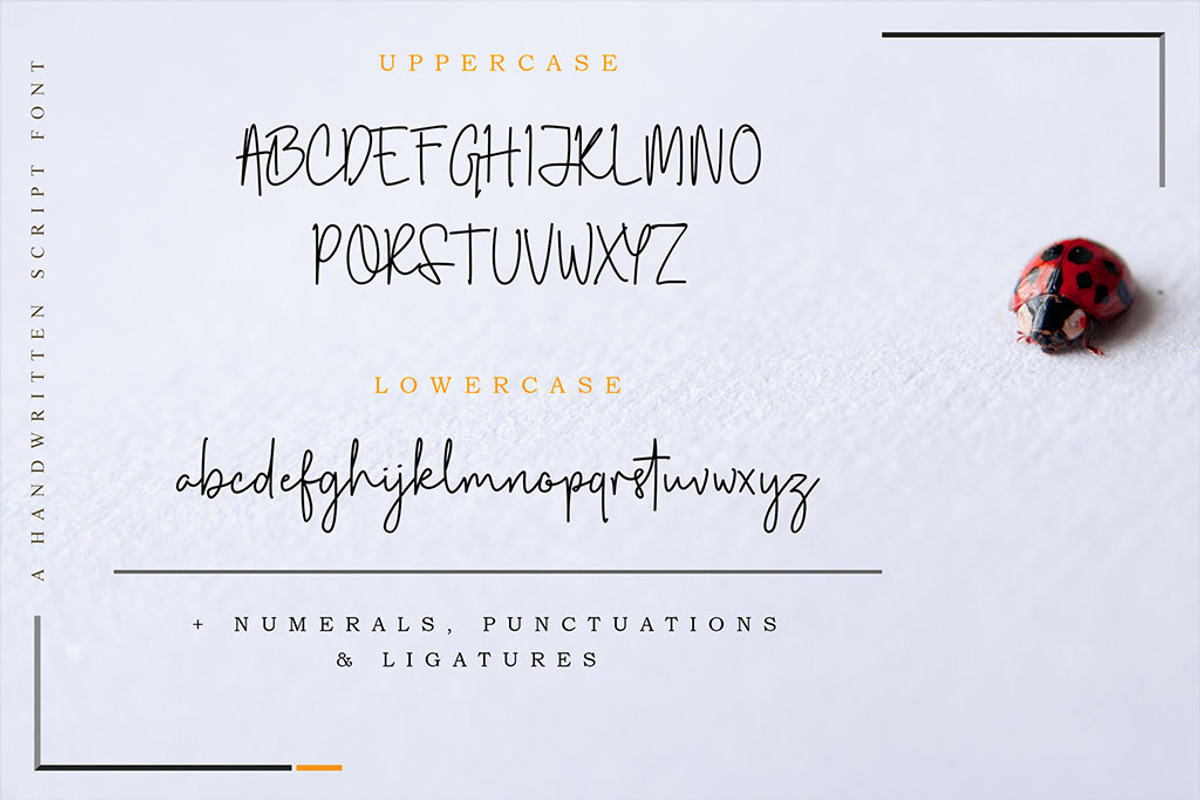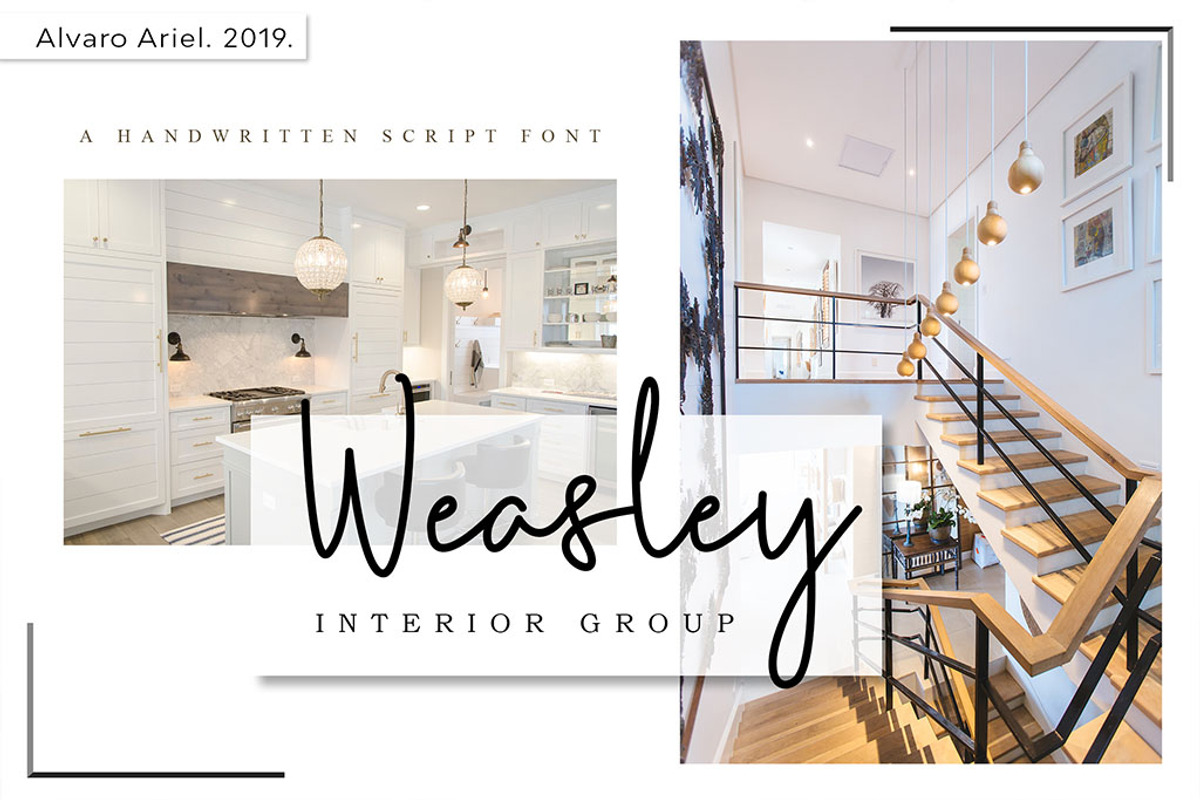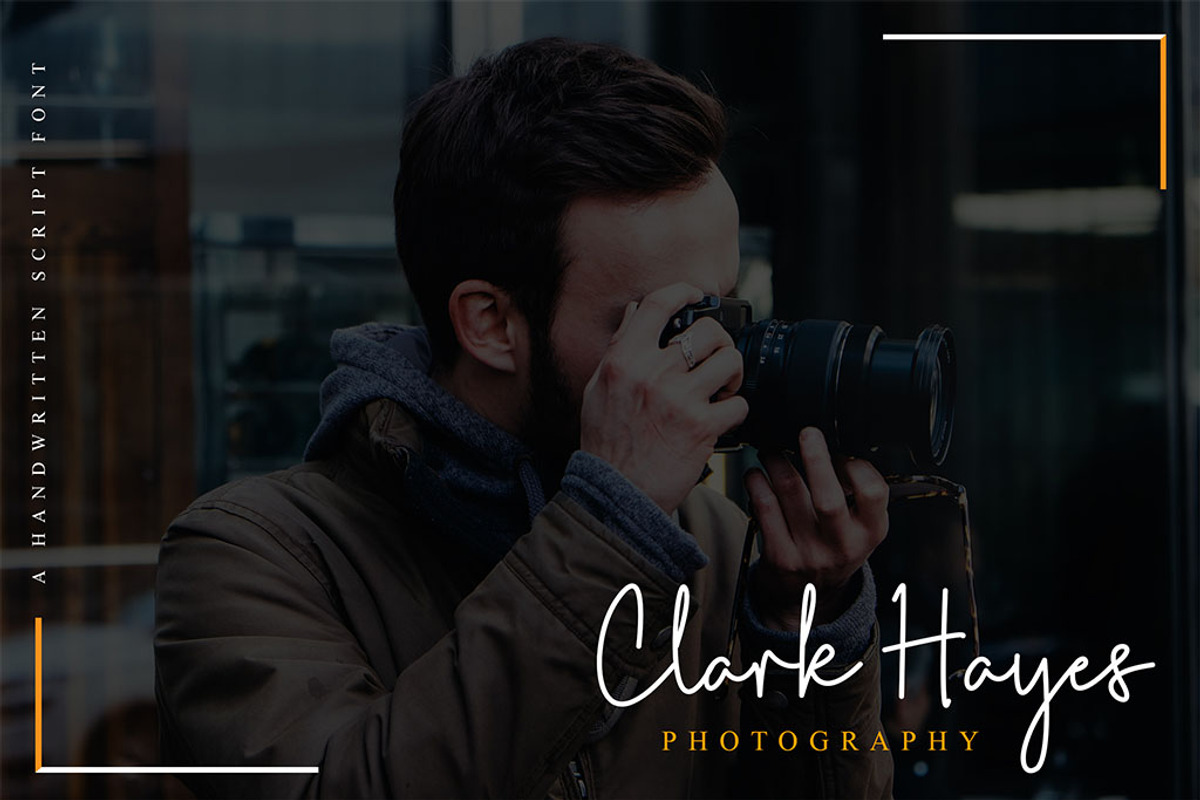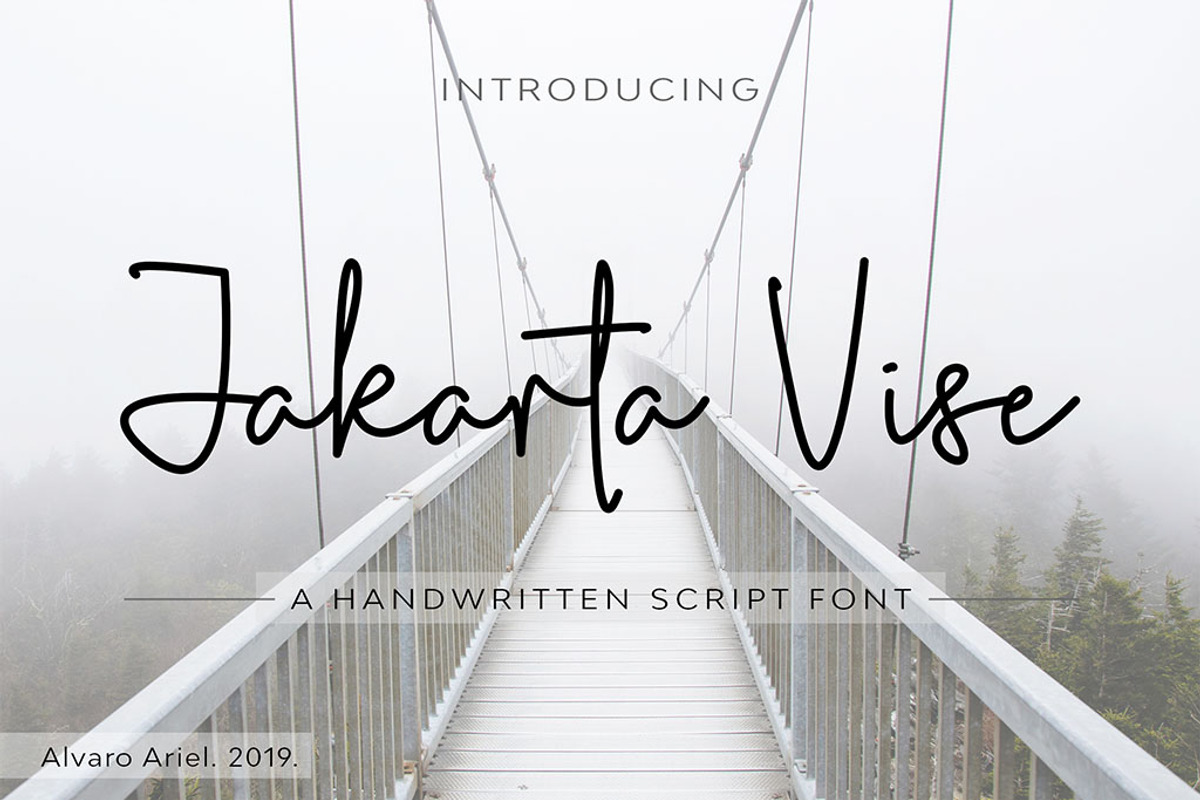
Jakarta Vise Script
Introducing the Jakarta Vise handwritten script font. A simple handwritten script font with a natural & stylish flow. This font contains uppercase, lowercase, numbers, symbols, including multilingual support and ligature.
- Multilingual Support: Afrikaans, Danish, Dutch, French, German, Indonesian, Irish, Italian, Norwegian, Portuguese, Romansh, Scottish, Spanish, and Swedish.